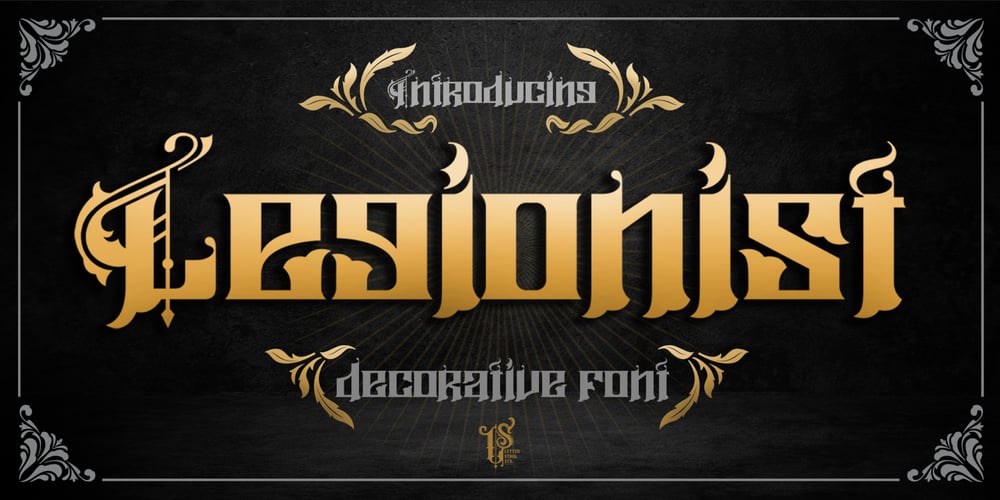
Legionist Font Family was designed by Studio LetterStock and published by LetterStock. Legionist contains 1 styles and family package options. Legionist FontThis pair was inspired by poster design that i saw on street, It was crafted by hand specially to add natural handmade feeling in its brand identity than i make it clean with pentool.Opentype featuresLegionist Font is very good looking in logo,movie poster design, youtube tumbnail, labels, product packaging, invitations, advertising and others.If you need a font for with decorative vintage style, Legionist font is great choice for you to make your design authentic and unique.This fonts works with folowing languages:Afrikaans, Albanian, Asu, Basque, Bemba, Bena, Chiga, Cornish, Danish, English, Estonian, Filipino, Finnish, French, Friulian, Galician, German, Gusii, Indonesian, Irish, Italian, Kabuverdianu, Kalenjin, Kinyarwanda, Low German, Luo, Luxembourgish, Luyia, Machame, Makhuwa-Meetto, Makonde, Malagasy, Malay, Manx, Morisyen, North Ndebele, Norwegian Bokmål, Norwegian Nynorsk, Nyankole, Oromo, Portuguese, Romansh, Rombo, Rundi, Rwa, Samburu, Sango, Sangu, Scottish Gaelic, Sena, Shambala, Shona, Soga, Somali, Spanish, Swahili, Swedish, Swiss German, Taita, Teso, Vunjo, ZuluThank you for using this font.LS